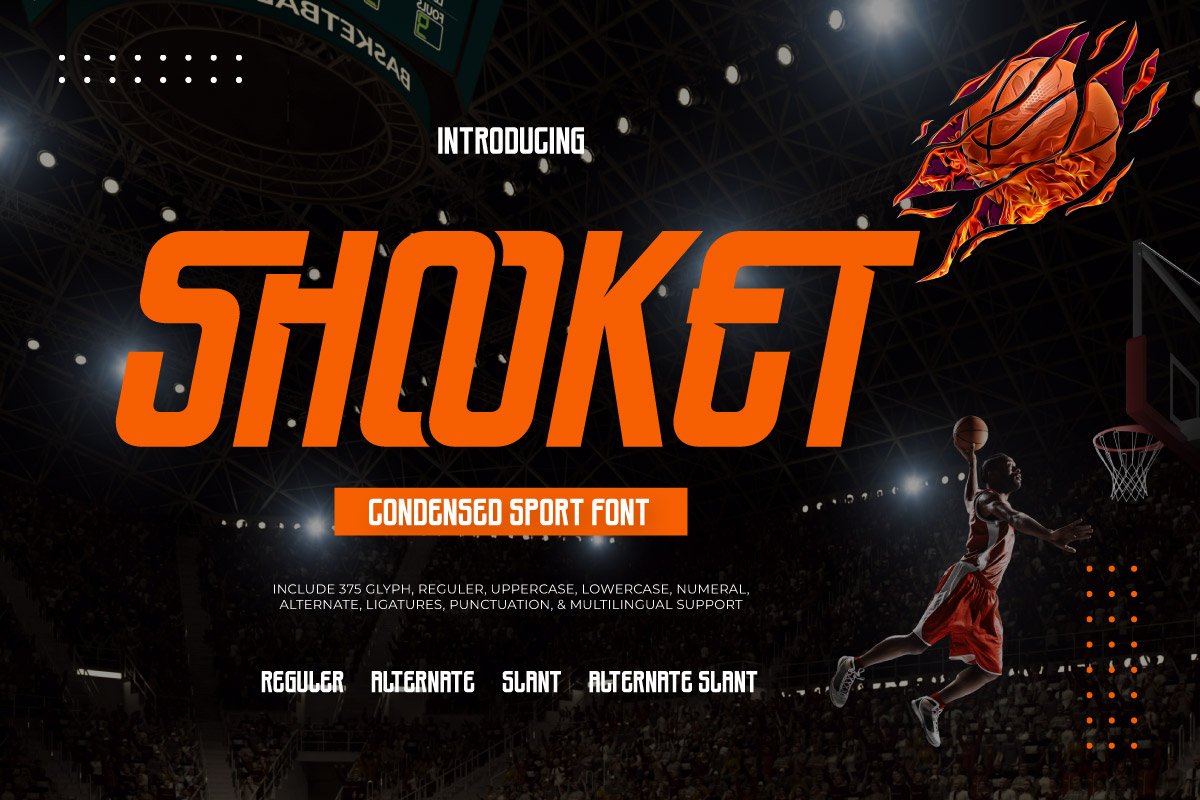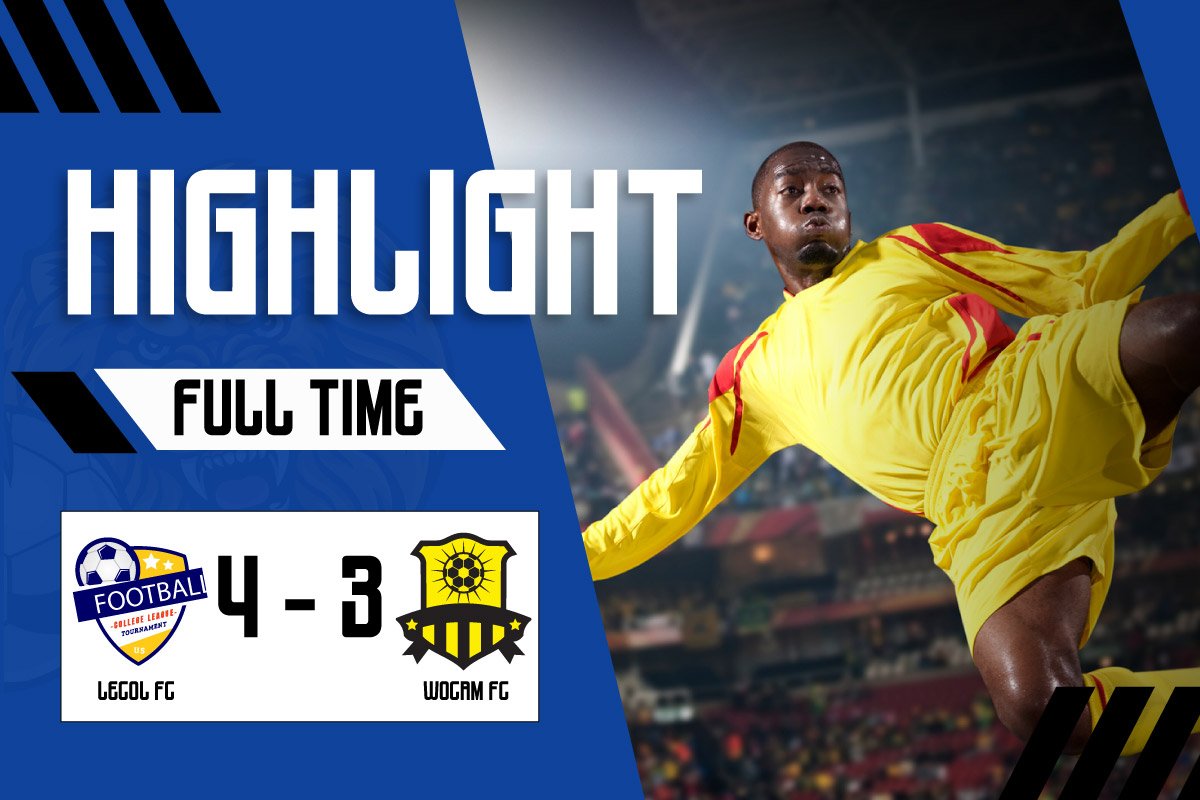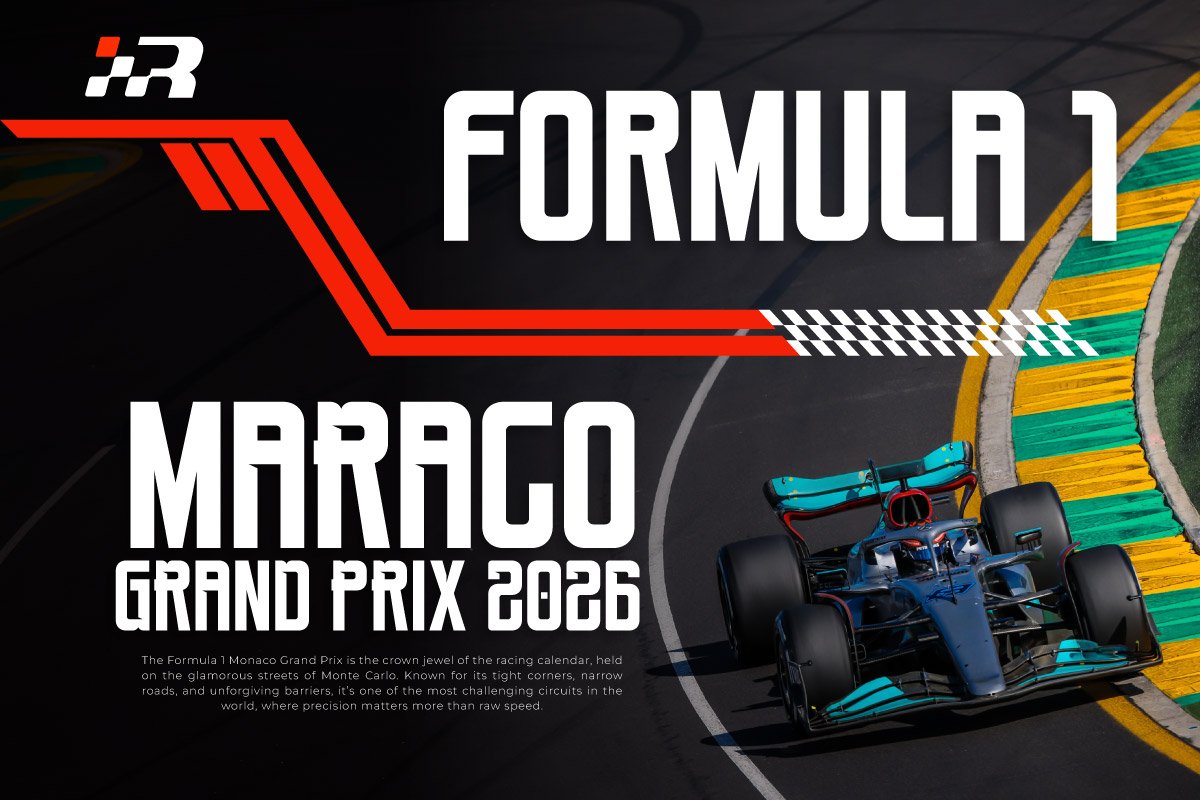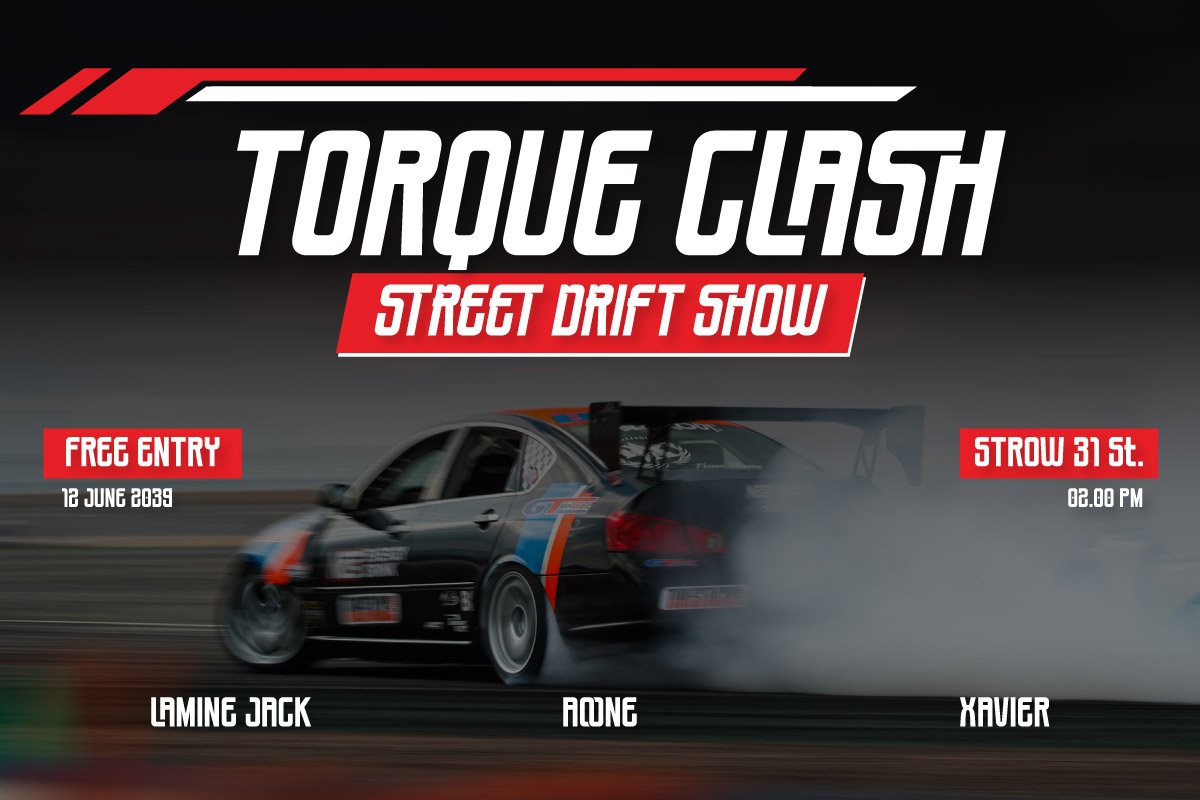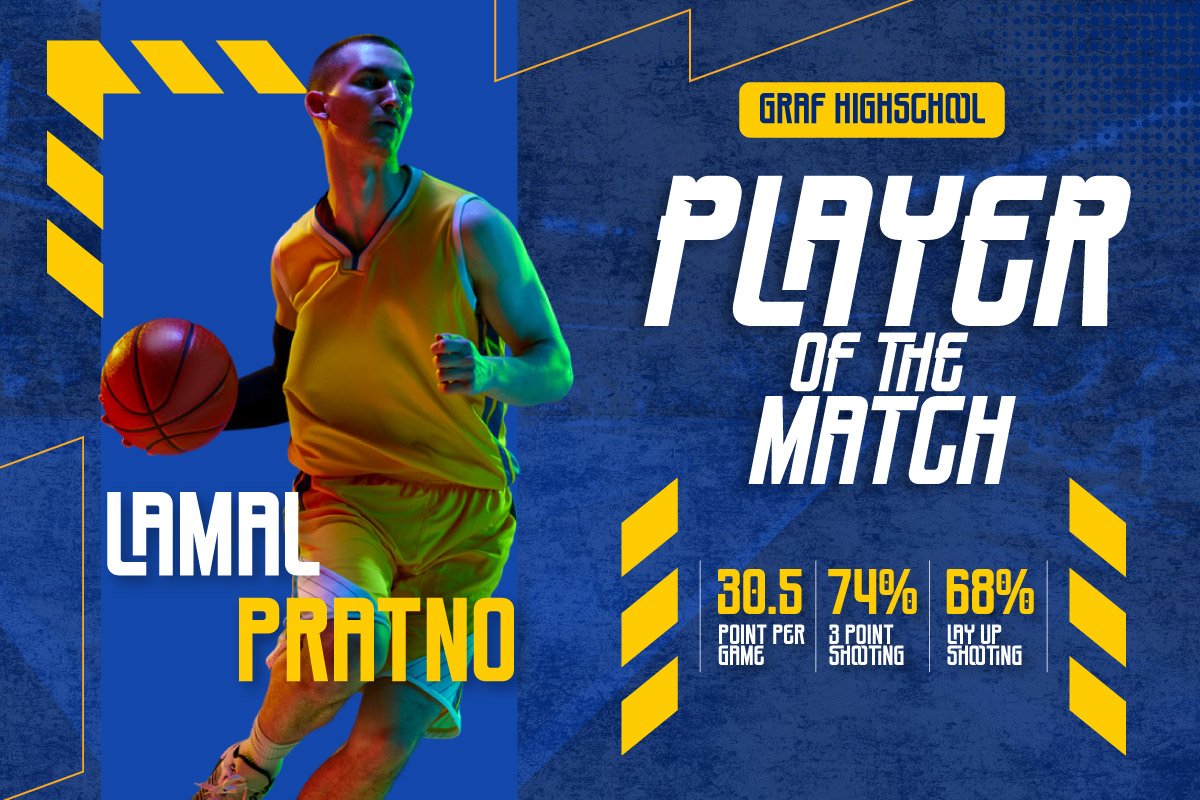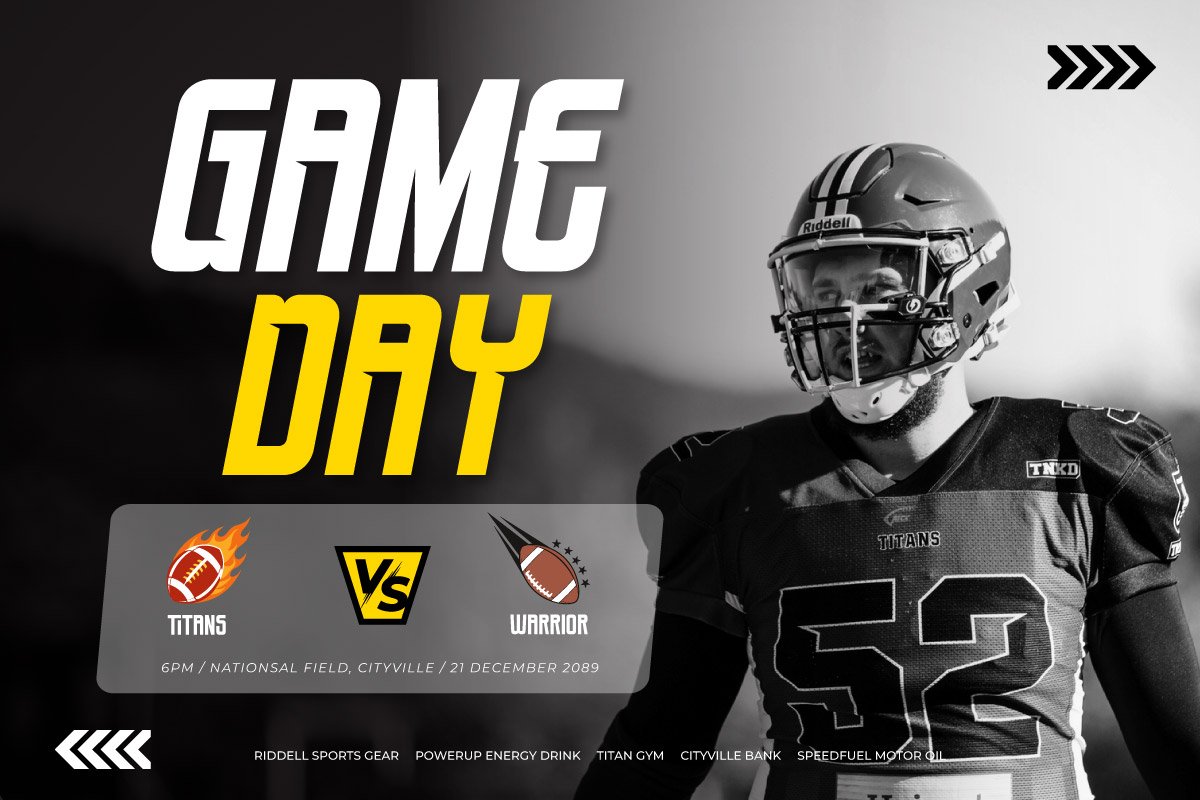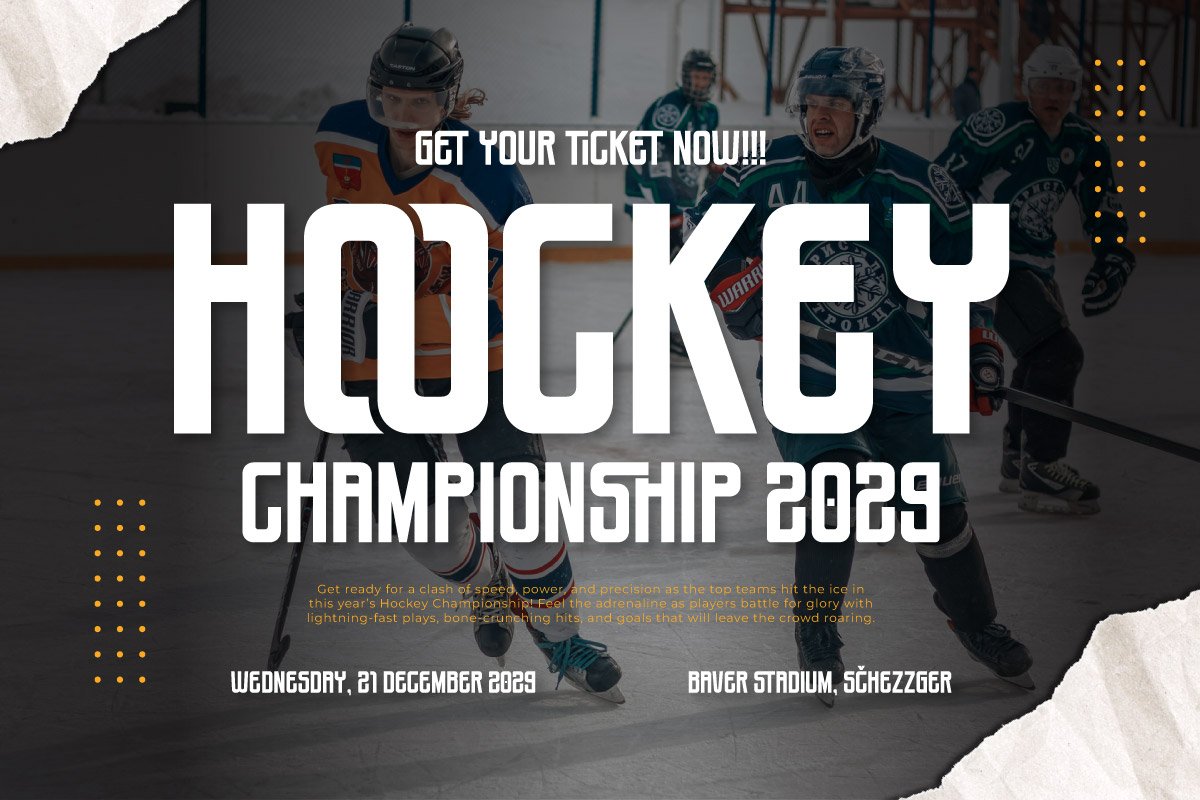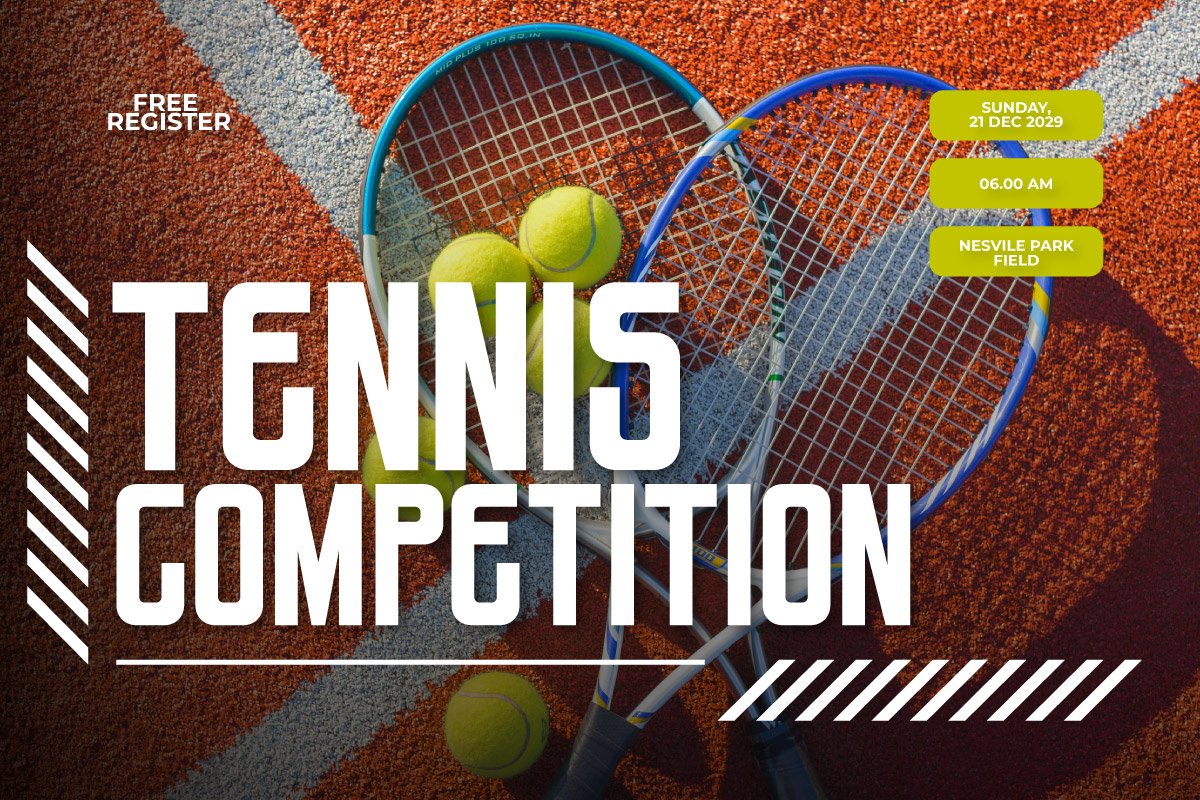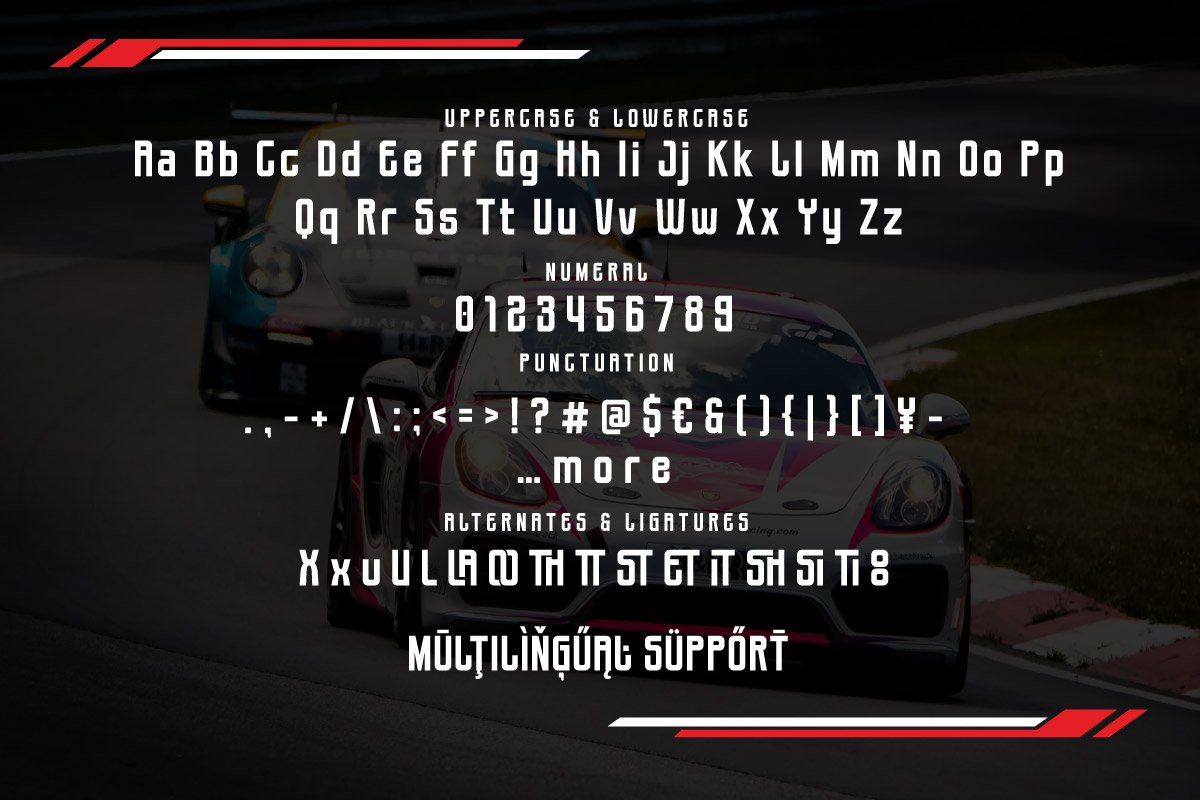
- Shooket – Sport Display Font
DOMINATE THE FIELD WITH UNSHAKEABLE IMPACT AND SPEED-INSPIRED DESIGN.
Shooket is a powerhouse condensed sport font built for victory. With its aggressive proportions, dynamic angles, and athletic energy, this typeface is engineered to make your designs look faster, stronger, and more competitive. Perfect for sports branding, gaming identities, and high-impact headlines, Shooket delivers intensity and professionalism in every glyph.
This ultra-versatile font comes in 4 high-octane styles: clean and bold Regular, sleek and speedy Slant, unique and stylistic Alternate, and the ultimate racing-inspired Alternate Slant. With over 375 glyphs, including uppercase and lowercase characters, numerals, alternates, ligatures, punctuation, and extensive multilingual support, Shooket gives you everything you need to create standout logos, jerseys, posters, and more.
Ideal for esports, motorsports, fitness branding, and any project that demands a bold, win-ready attitude. Gear up with Shooket—and bring the energy of a championship right into your design.